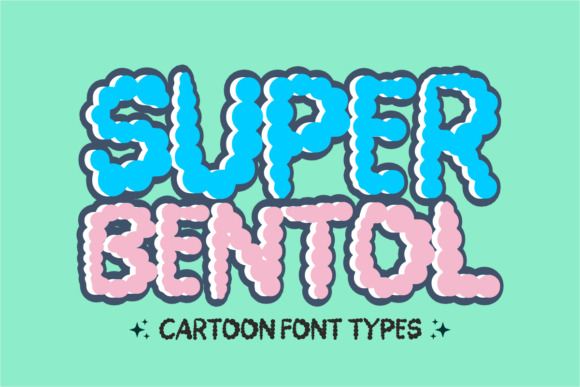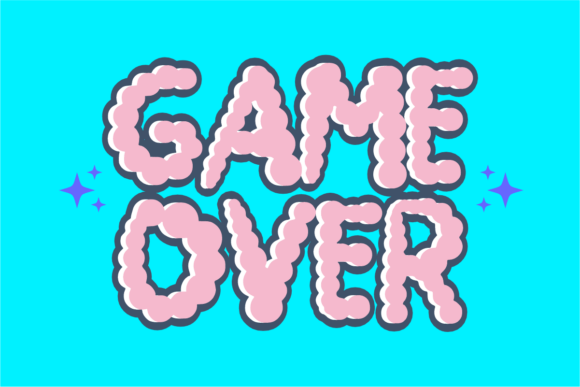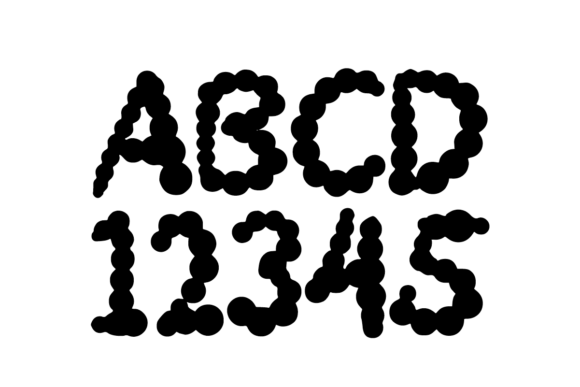
Introduction to Small Lump Font
Have you ever been in the middle of a creative project, staring at a blank canvas, and suddenly, the perfect font pops into your mind? It’s as if the entire design falls into place, and you can’t wait to bring your vision to life. This is exactly what happened to designers who discovered the Small Lump Font – a modern and playful uppercase font that adds a touch of magic to any creation.
As a valuable addition to your design resource library, the Small Lump Font is perfect for designers who crave high-quality typography for their projects. Its transparent background and free download make it an instant favorite among creatives. Whether you’re working on a children’s book, a marketing campaign, or a personal art project, this font is sure to elevate your design and leave a lasting impression.
Key Features of Small Lump Font
- High-quality design resource ideal for creative projects requiring a unique aesthetic.
- Small Lump Font features a transparent background, allowing for easy customization and versatility in design applications.
- Includes a range of characters, including uppercase and lowercase letters, numbers, and special symbols, to cater to diverse design needs.
- Unique and modern design style that can add a touch of sophistication to any creative project, from logos to graphics and more.
Honest Review: Small Lump Font
I recently had the chance to work with the Small Lump Font, and I must say it’s been a pleasant experience. This font is a high-quality design resource that’s perfect for creative projects that require a unique touch.
Here are some of the things that work well with the Small Lump Font:
- ✨ Unique character set: The font features a wide range of characters, including accents and special symbols.
- ✨ High-quality design: The font is well-designed and looks great in print and digital formats.
However, there are a few limitations to be aware of:
- ⚠️ Limited font styles: The Small Lump Font only comes in a few different font styles, which may limit its use in certain projects.
- ⚠️ Not suitable for all projects: The font’s unique design may not be suitable for all types of projects, such as formal business documents or technical manuals.
Overall, I’m impressed with the Small Lump Font and would recommend it to designers looking for a unique and high-quality design resource.
Tips for Getting the Most Out of Small Lump Font
For best results, use Small Lump Font in combination with a high-contrast background to make the text stand out. You can also experiment with different font sizes and styles to create a visually appealing design.
Small Lump Font is ideal for use in logos, headings, and titles. It’s also a great choice for creating eye-catching social media graphics or promotional materials.